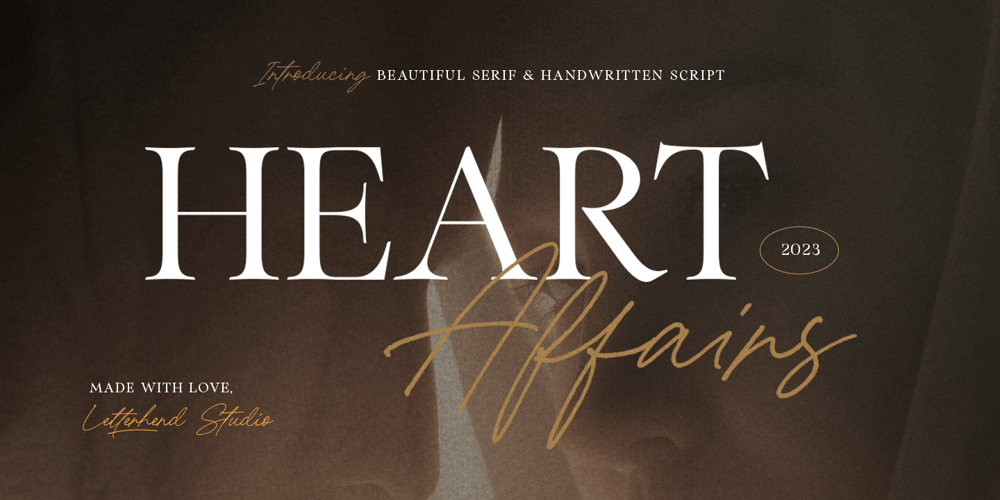
Heart Affairs Font Family was designed by Hendry Juanda and published by Letterhend. Heart Affairs contains 2 styles and family package options. Ladies and gentlemen, please welcome our new font duo – Heart Affairs, where the elegance of a serif font intertwines flawlessly with the beauty of a handwritten script. This font duo is carefully crafted to bring together the classic charm of serifs with the contemporary edge of modern scripts. Whether you’re designing wedding invitations, branding materials, or editorial layouts, Heart Affairs effortlessly elevates your projects with its timeless appeal and stylish versatility.Features : Uppercase & lowercase Numbers and punctuation Alternates & Ligatures Multilingual PUA encoded We highly recommend using a program that supports OpenType features and Glyphs panels like many of Adobe apps and Corel Draw, so you can see and access all Glyph variations.